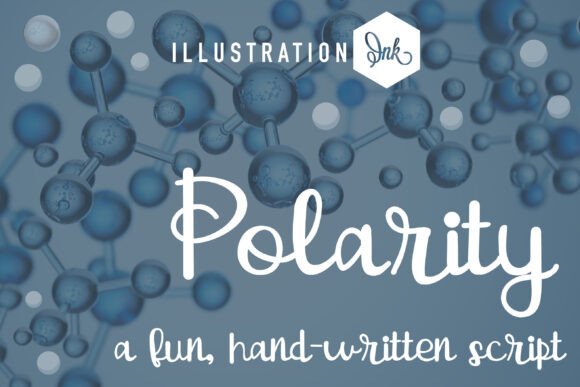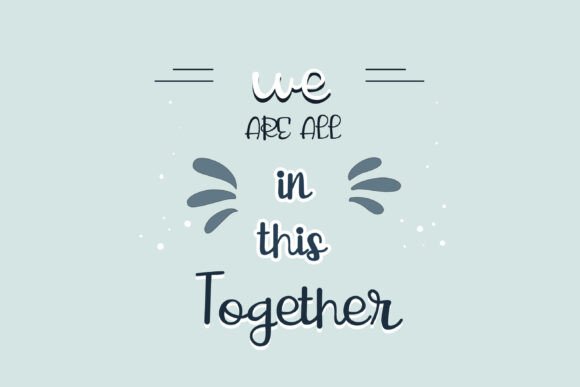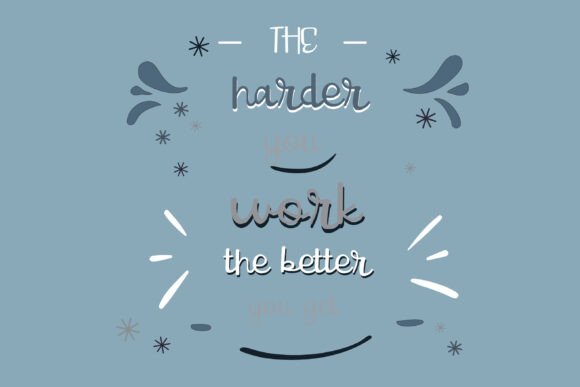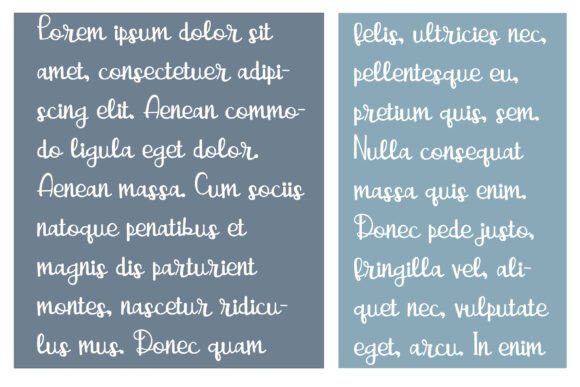
Polarity Font
About the Polarity Font
Experience the unique personality of Polarity Font, a font designed for impact. This hand-crafted font is an upright cursive with a casual feel.
Polarity’s casual, upright cursive style is ideal for headlines, short text blocks on branding materials, and invitations. Its handcrafted charm works well in packaging design for artisanal products or boutique brands. However, avoid using it for body text or long paragraphs; its informal nature makes it less legible for extended reading. Also, it’s unsuitable for UI applications requiring high readability.
The font’s core personality is friendly and approachable, yet possesses a stylish boldness. This makes it suitable for brands projecting a youthful, creative, or handcrafted image.
Pairing Polarity with a clean sans-serif like Open Sans for body copy creates a strong visual contrast and balanced readability. For a more elegant feel, consider a classic serif such as Garamond or a subtle geometric sans-serif like Montserrat.